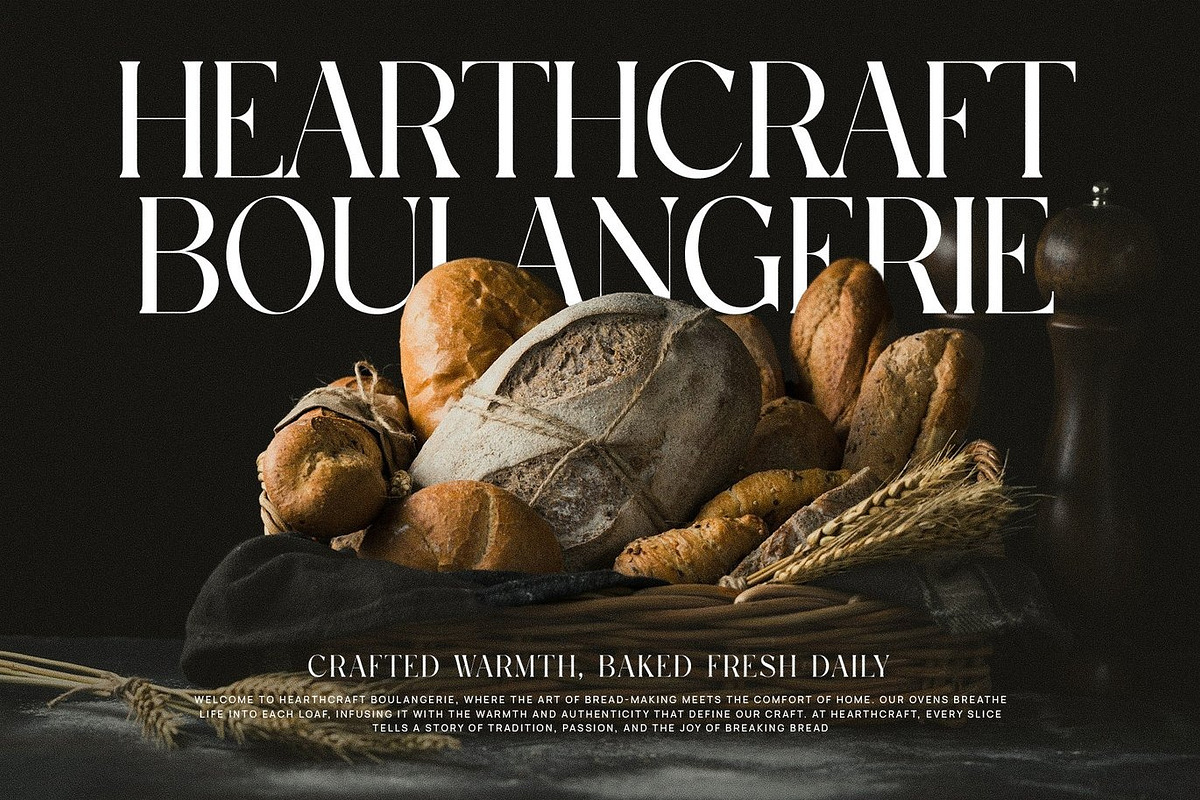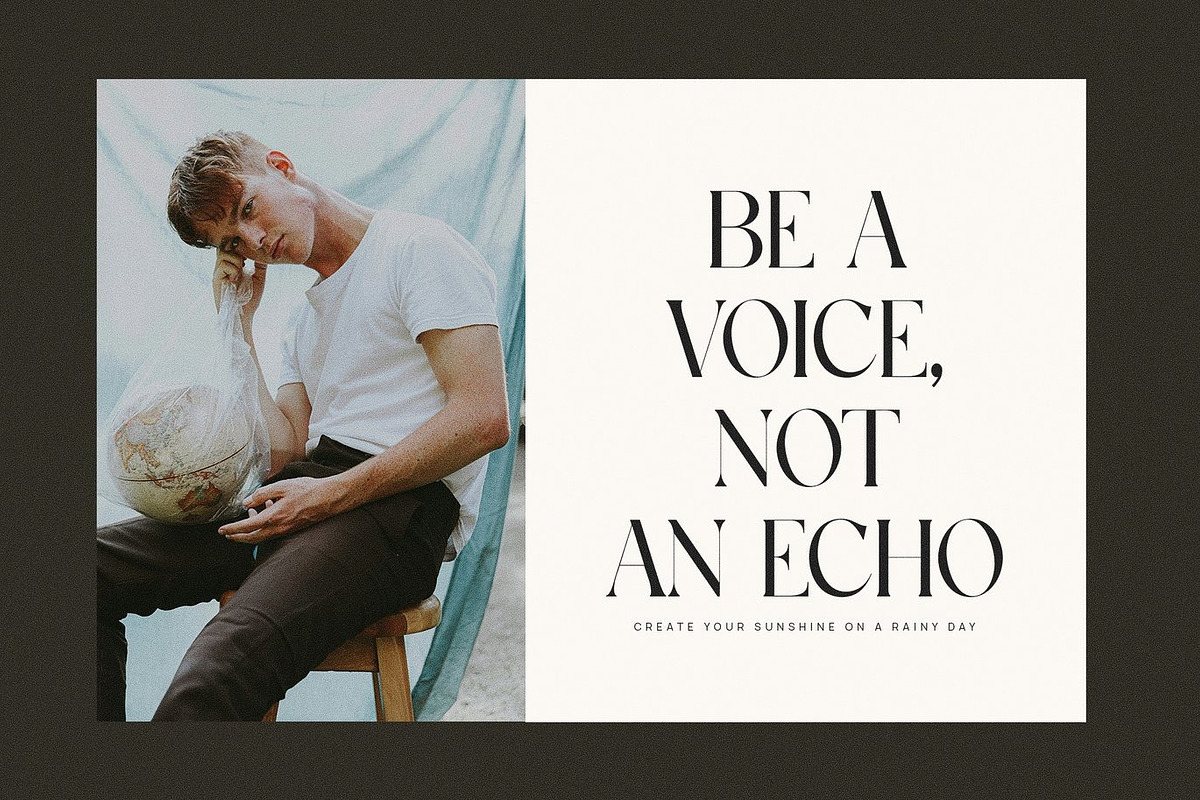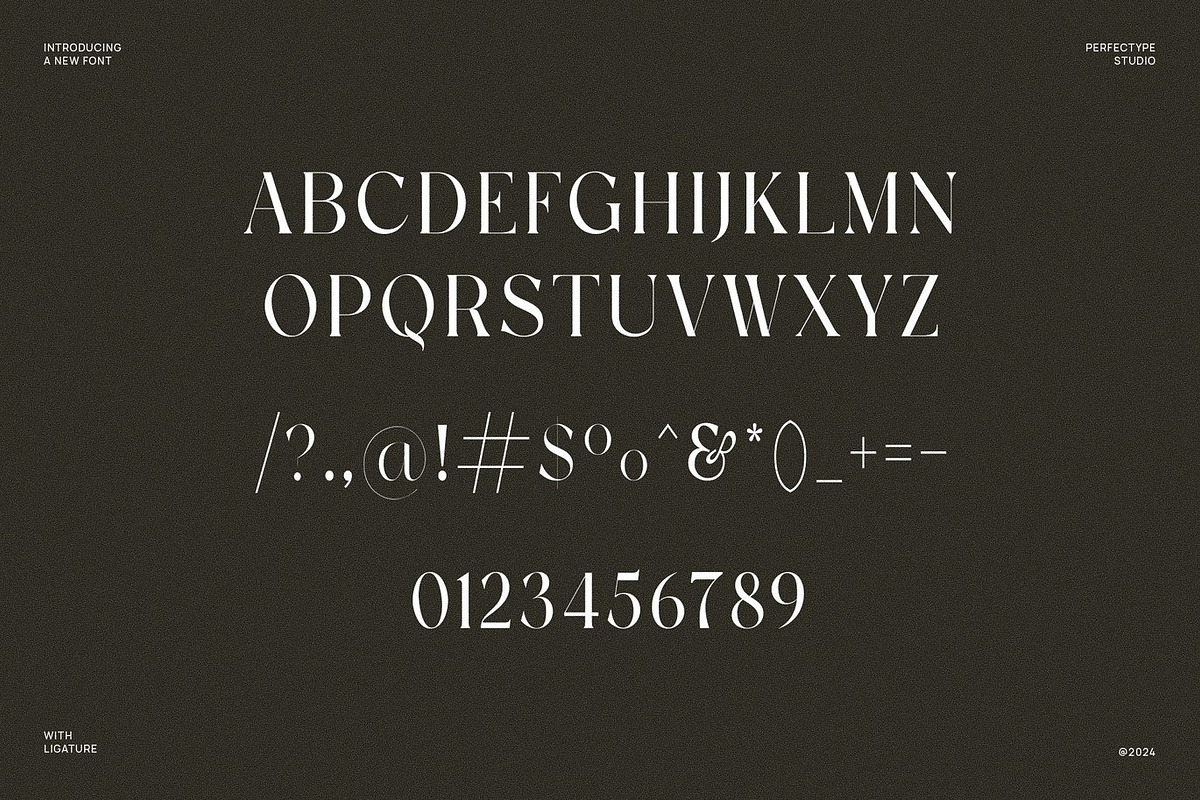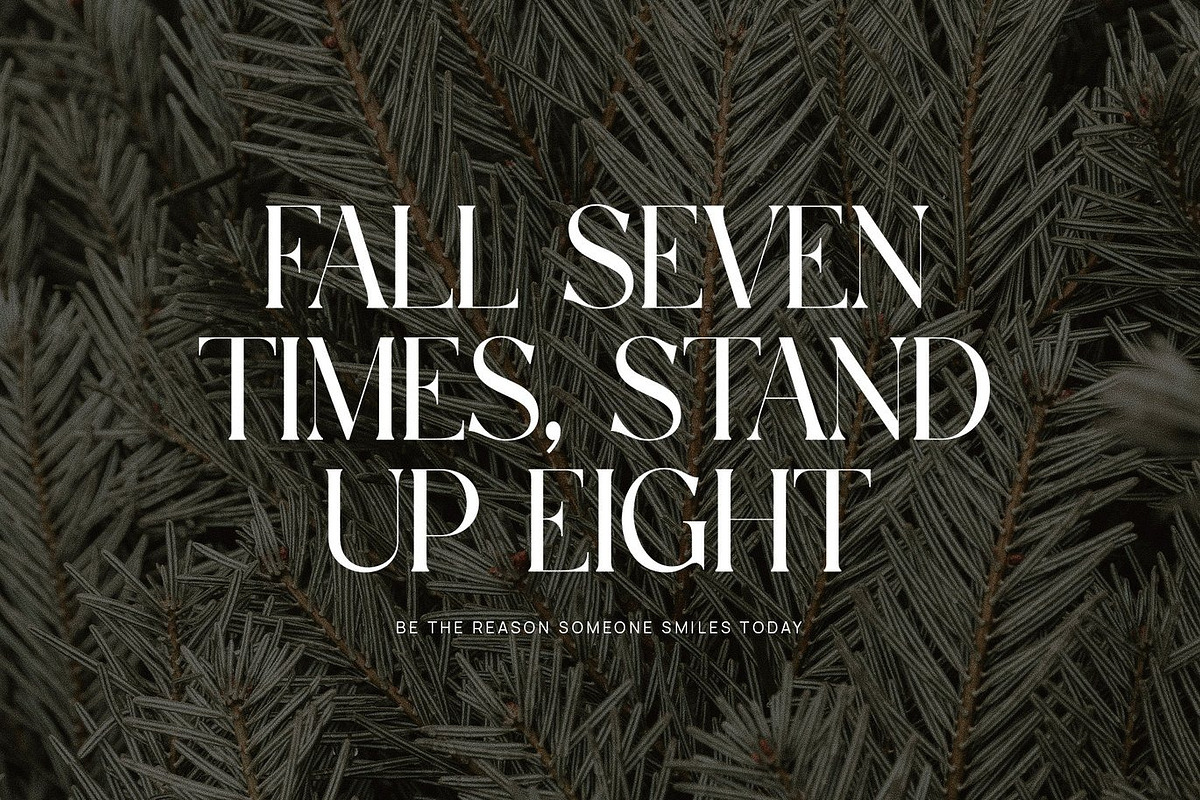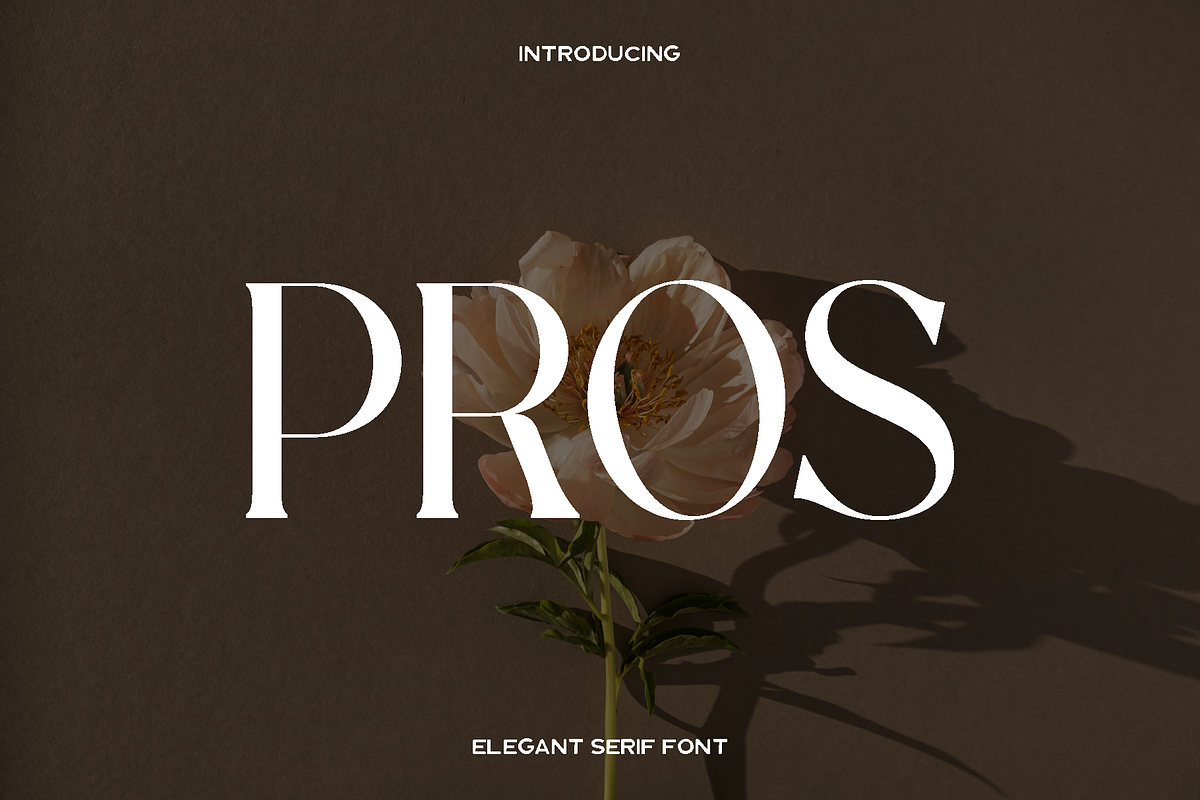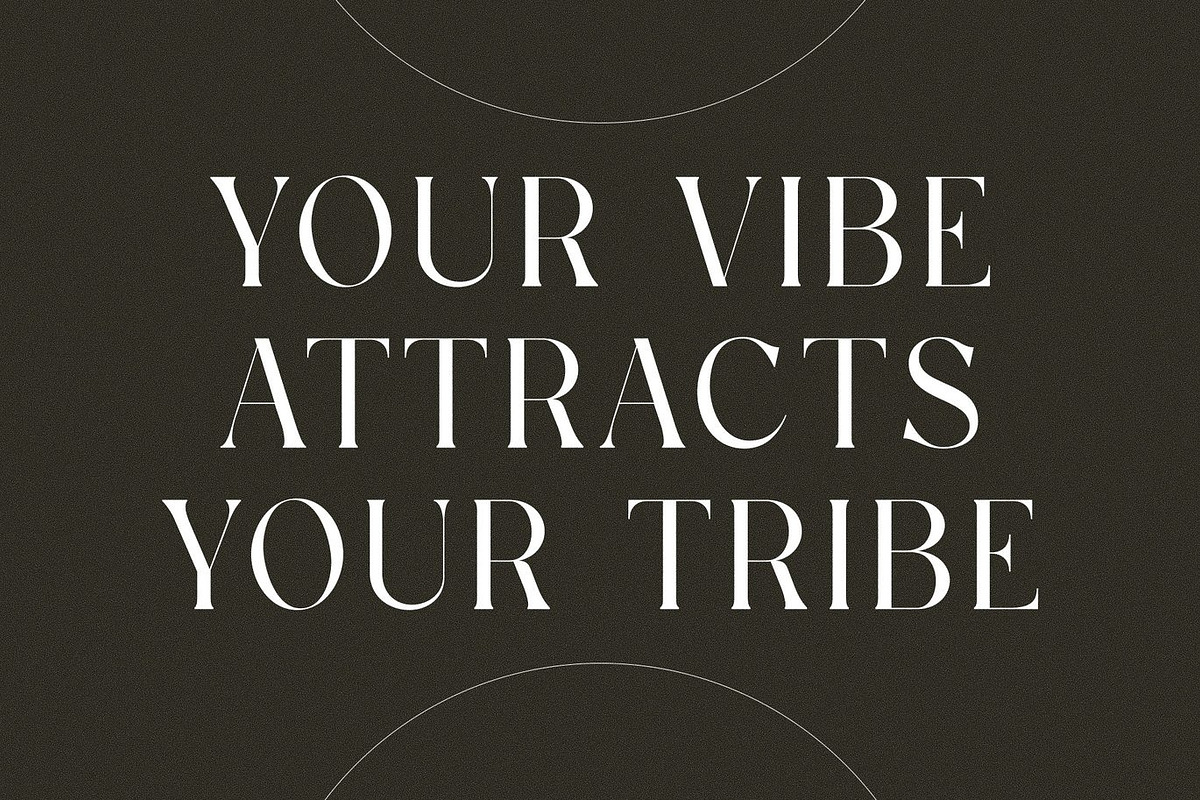
Pros - Elegant Serif
Pros Elegant Serif Typeface is a refined serif font created to express sophistication, beauty, and timeless style. Inspired by high fashion editorials and luxury branding, this typeface blends classic elegance with a modern visual rhythm. Its high contrast strokes, graceful curves, and clean structure give every letter a confident and polished appearance, making your designs feel premium and thoughtfully crafted.
This font shines in fashion campaigns, magazine layouts, luxury logos, beauty branding, and premium product packaging. Pros feels bold yet elegant, allowing headlines to command attention while maintaining excellent readability. Its tall proportions and balanced spacing create an editorial mood that works beautifully in both digital and print environments.
Designed for versatility, Pros Elegant Serif Typeface adapts seamlessly to minimalist layouts, modern compositions, and refined visual identities. Stylish alternates and ligatures give designers creative freedom to customize typography and build unique brand expressions. Whether paired with modern sans serif fonts or expressive scripts, Pros adds depth, clarity, and class to every project.
Pros was crafted to elevate visual storytelling. It is ideal for designers who want their work to feel luxurious, confident, and timeless while remaining practical and easy to use across a wide range of creative applications.
Pros Elegant Serif Typeface Features:
• Elegant and readable serif characters
• High contrast letterforms for strong visual impact
• Stylish alternates and ligatures
• Uppercase and lowercase
• Punctuation, numbers, and symbols
• OpenType features
• Suitable for print and digital use
• Multilingual support available
Use Pros Elegant Serif Typeface to bring refinement, clarity, and luxury into your designs and create visuals that truly stand out.